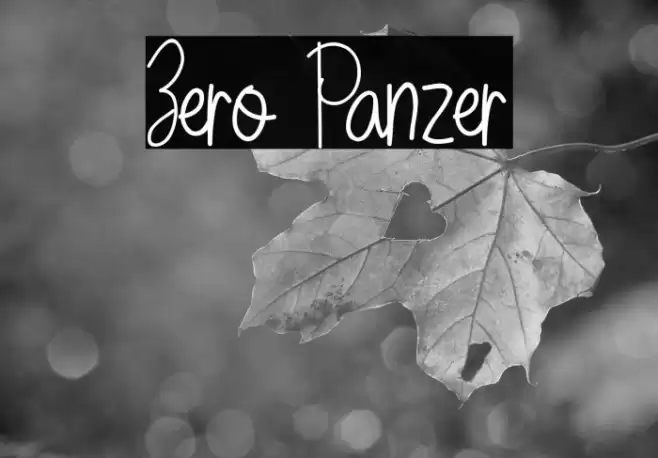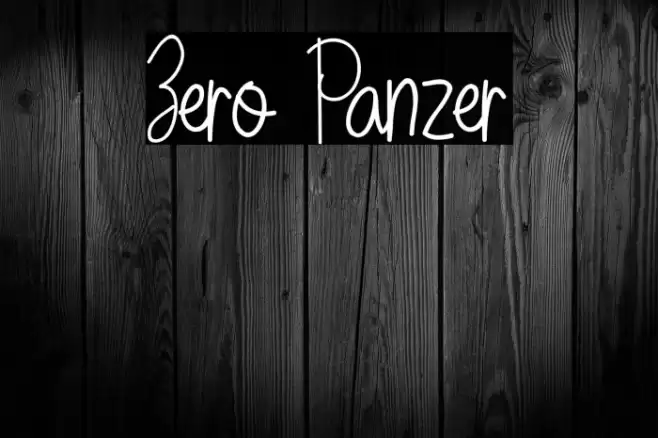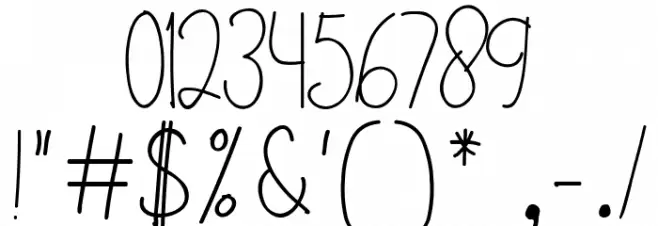
Zero Panzer Font
Zero Panzer Description
This font features a playful and whimsical handwritten style, characterized by its tall, narrow letterforms and slightly irregular strokes. The uppercase letters are distinct with elongated verticals and subtle curves, giving them a lively appearance. The lowercase letters maintain a consistent flow, with some characters featuring loops and swirls that add to the font's charm. Numbers and special characters are designed to match the overall aesthetic, ensuring a cohesive look. The font's thin lines and open spacing contribute to its airy and light feel, making it suitable for creative and informal applications.
A playful, handwritten font with tall, narrow letters and whimsical strokes from Regular fonts.
- Proposed Projects: Ideal for greeting cards, children's books, playful branding, and creative invitations.
- Weight: Light
- Character Spacing: Wide
- Overall Style: Playful
- Use Case: Headlines, Logos, Creative projects